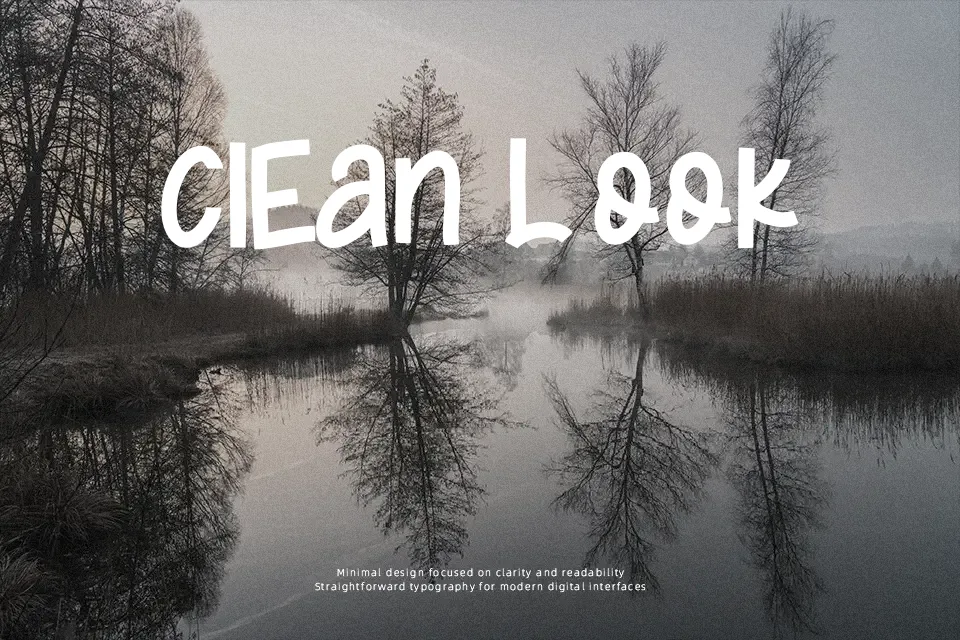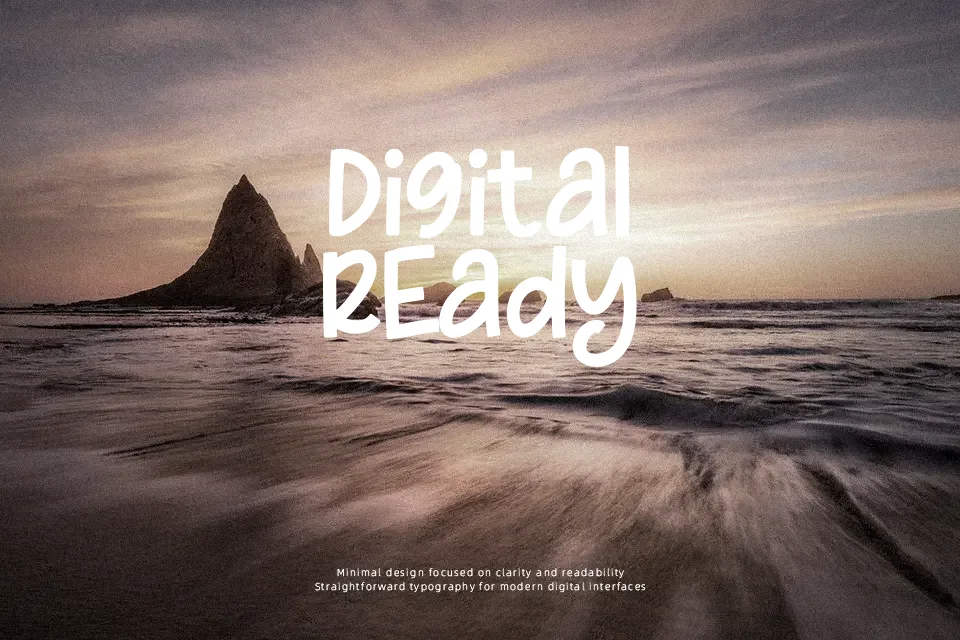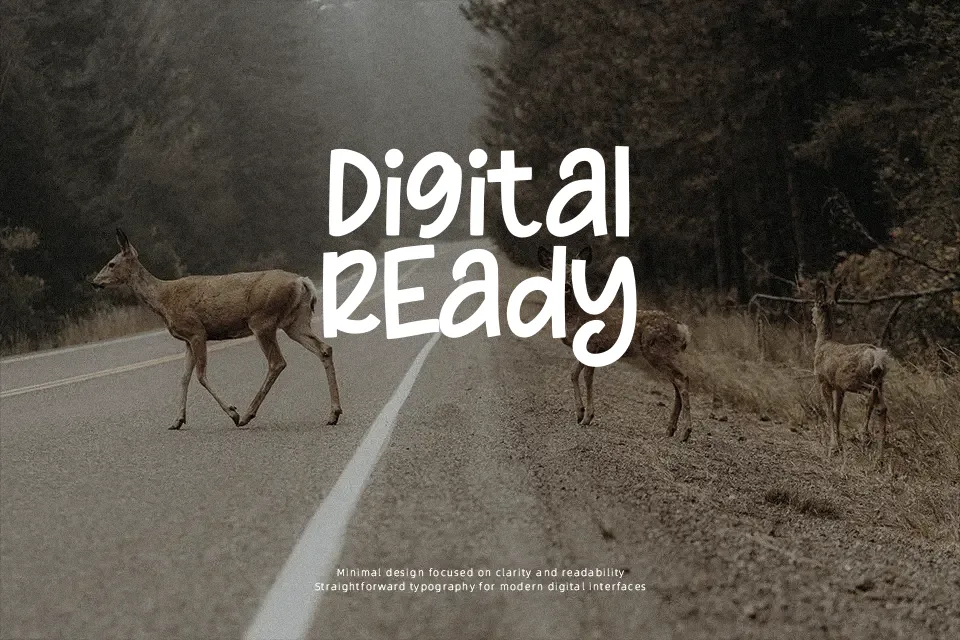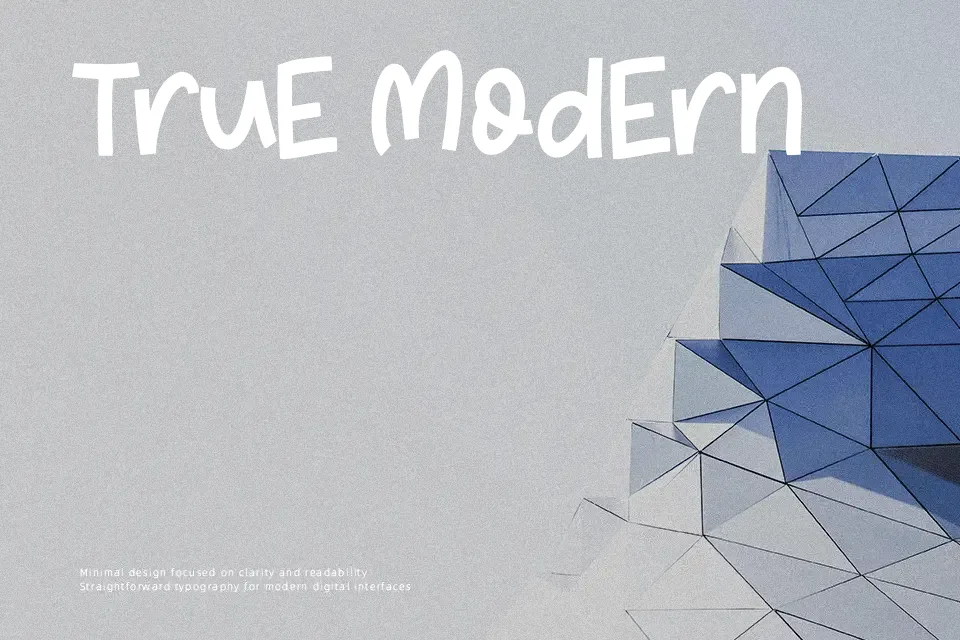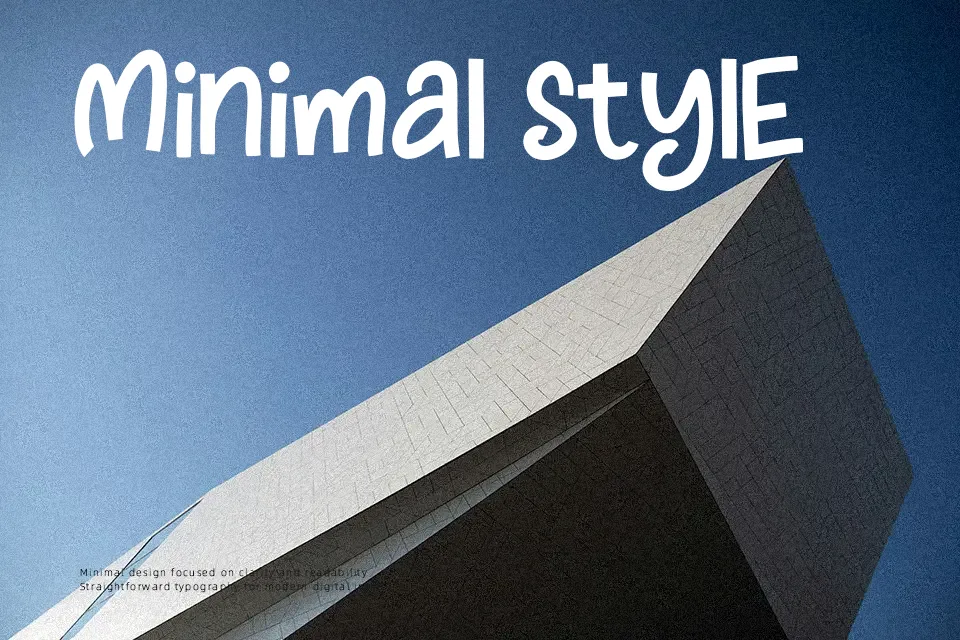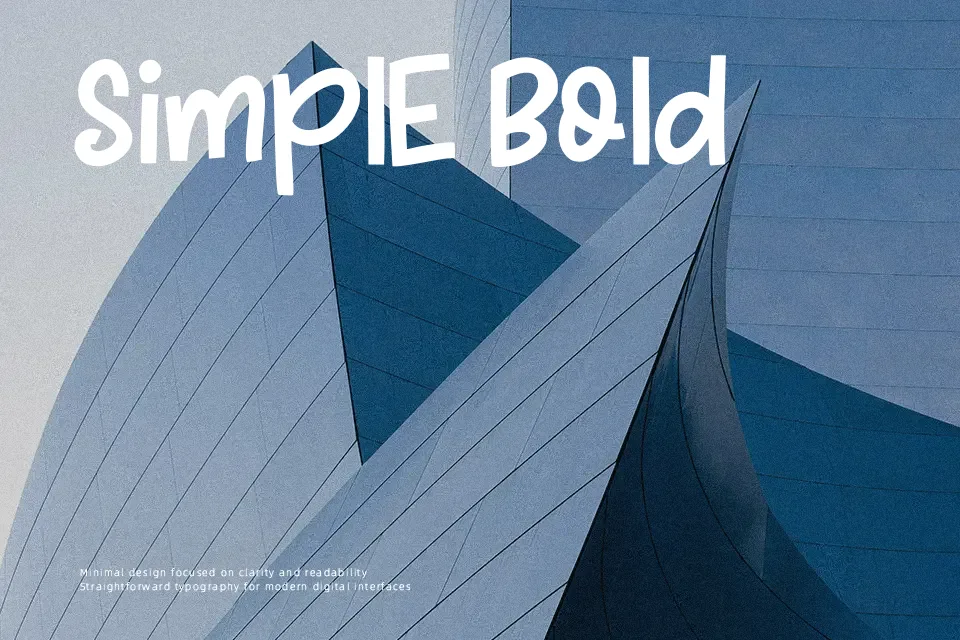
Christmas Farmhouse Font
Seasonal gift packaging and holiday craft labels gain an inviting character with Christmas Farmhouse Font. Built with rounded strokes and informal proportions, the typeface exhibits an energetic, hand-drawn rhythm across its uppercase and lowercase characters. Moderate spacing between letterforms helps maintain individual glyph identification in prominent display headers and decorative banners. However, the organic irregularities and expressive stroke variations reduce continuous reading comfort when rendered in dense editorial paragraphs or small caption text. The design achieves its strongest visual appeal at medium to large scale, where the soft terminals and cheerful curves deliver a welcoming rustic presence without compromising headline clarity.
Best For: holiday craft packaging, greeting card headlines, festive merchandise labels, seasonal event signage
Not Ideal For: extended paragraph text, corporate document layouts, small mobile interface text, tabular data sheets
Perfect for christmas, headline, and holiday, with a creative and cartoon style.